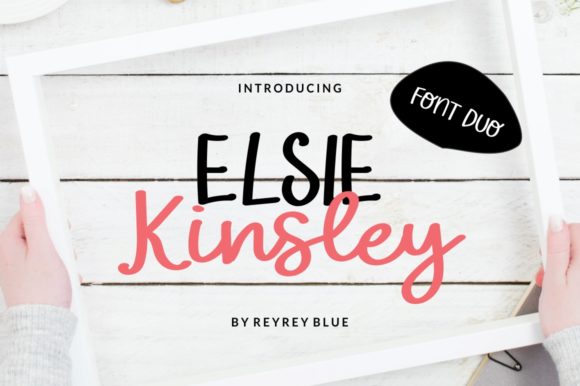
Dive into a world of enchanting expression with Elsie Kinsley Font, a captivating script duo that weaves a spell of charm and playfulness into your creative endeavors. Step into a realm where your designs dance with elegance and capture hearts with their whimsical touch.
Elsie Kinsley Font is an exquisite expression of modern calligraphy, meticulously crafted to infuse your projects with a touch of delightful spontaneity. Its two lovingly handwritten fonts effortlessly harmonize, providing endless possibilities for creative storytelling. Whether you seek a touch of magic for your branding, an air of whimsy for your website, or a spark of joy in your packaging designs, Elsie Kinsley Font is your perfect companion.
With its inherent charm, Elsie Kinsley Font effortlessly adds a touch of warmth to invitations and greetings, transforming them into cherished keepsakes that speak of heartfelt emotions. Its graceful strokes lend a touch of elegance to quotes and typography, making them stand out with captivating beauty. Unleash your creativity and weave captivating stories through visual masterpieces, as Elsie Kinsley Font becomes your artistic muse.
Immerse yourself in a symphony of creative expression, where Elsie Kinsley Font seamlessly blends with your vision. Its versatility knows no bounds, effortlessly adapting to a myriad of projects, from merchandise designs that whisper tales of individuality to packaging that captivates with its enchanting allure. Allow your imagination to soar as Elsie Kinsley Font dances across your designs, transforming them into captivating works of art.
Experience the magic of Elsie Kinsley Font, a font duo that will ignite your creativity and leave a lasting impression. Its effortless charm and modern flair will captivate your audience, enchanting them with its timeless beauty. Embrace the power of expression and let Elsie Kinsley Font guide you on an artistic journey like no other.